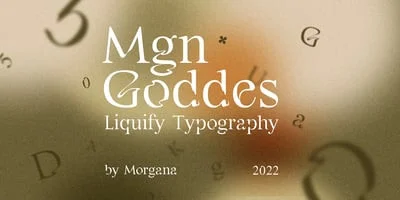
MGN Goddess Font
MGN Goddess Font is perfect for divine projects including luxury beauty branding, spiritual wellness materials, elegant fashion magazines, goddess-themed artwork, premium spa signage, feminine empowerment campaigns, mystical book covers, and ethereal wedding invitations. This enchanting typeface brings celestial elegance and divine femininity to any design project.
What makes MGN Goddess Font exciting is its ethereal beauty that captures the essence of divine feminine power and grace. The flowing letterforms feature delicate curves and celestial flourishes that evoke the majesty of ancient goddesses while maintaining contemporary sophistication. This font delivers the perfect combination of strength and elegance, creating an atmosphere of empowerment and mystical beauty that inspires and captivates.
The MGN Goddess Font family typically includes elegant weights with ornate styling, complete uppercase and lowercase alphabets, numerals, punctuation, and decorative flourishes. The design often features graceful swashes, celestial elements, and feminine details that enhance the divine aesthetic. Premium versions may include stylistic alternates, ligatures, and additional ornamental characters perfect for luxury and spiritual applications.
Whether you're designing for beauty brands, wellness centers, or empowerment movements, MGN Goddess Font delivers the divine elegance that elevates any brand to celestial heights. Its enchanting presence makes it ideal for memorable logos and inspirational messaging that connects with the feminine spirit. The font's goddess heritage ensures it conveys power and grace, making it perfect for any project requiring the majestic aesthetic of divine femininity and spiritual sophistication.